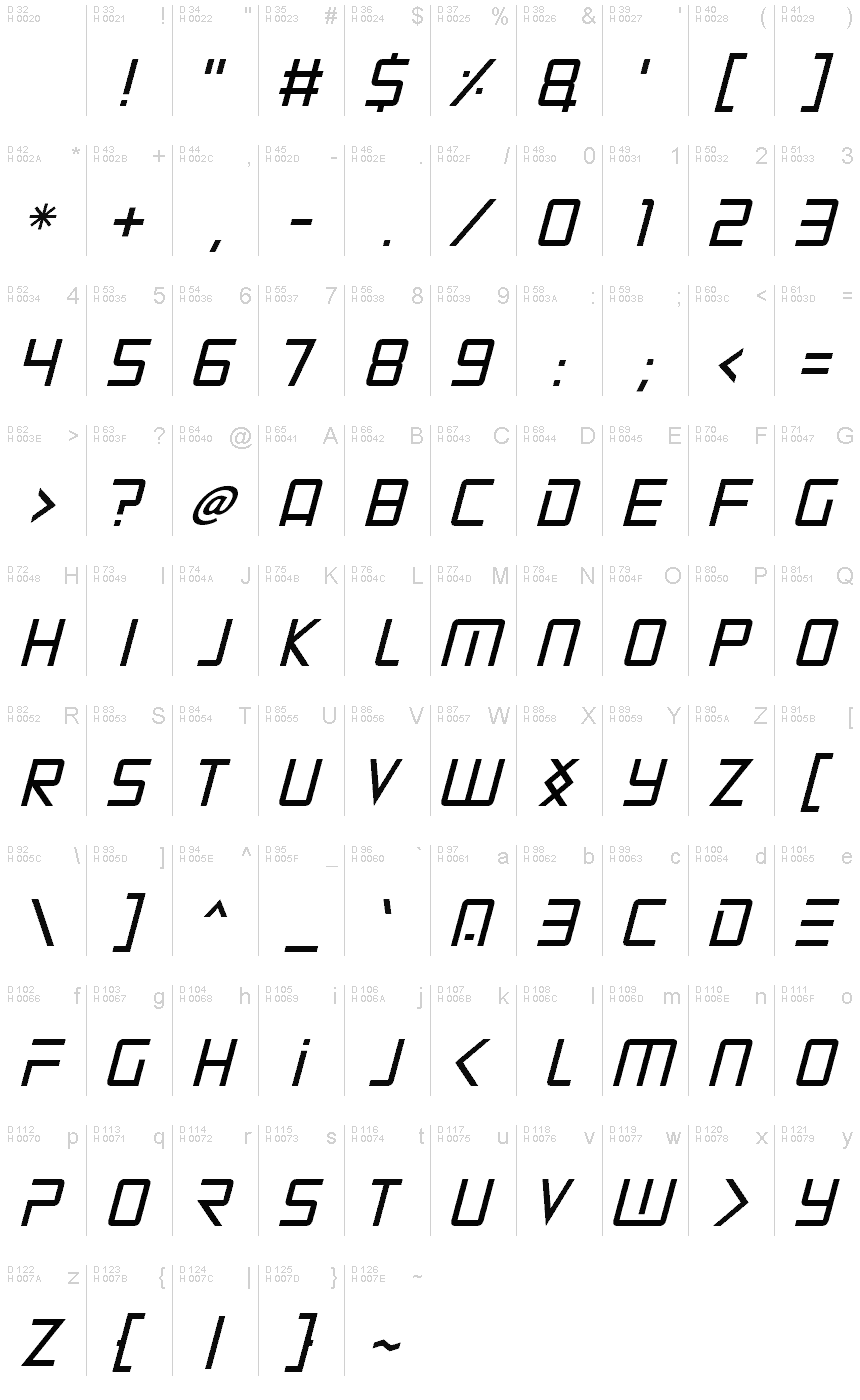
Mars Mission Italic
Mars Mission Italic from the Mars Mission font family, designed by Hawtpixel - Darrell Flood, is a striking display font that embodies a distinct futuristic aesthetic.
The sharp, angular letterforms and sleek, streamlined design evoke a sense of tech-forward innovation and interstellar exploration. With its bold, commanding presence, this font is well-suited for a variety of design applications, from sci-fi-inspired branding and packaging to eye-catching headlines and posters.
Its unique character lends itself to creating an impactful visual identity that captivates audiences and conveys a sense of cutting-edge modernity.
*This font includes italics and alternate characters for A,B,E,F,I,K,M,P,R,W and X.